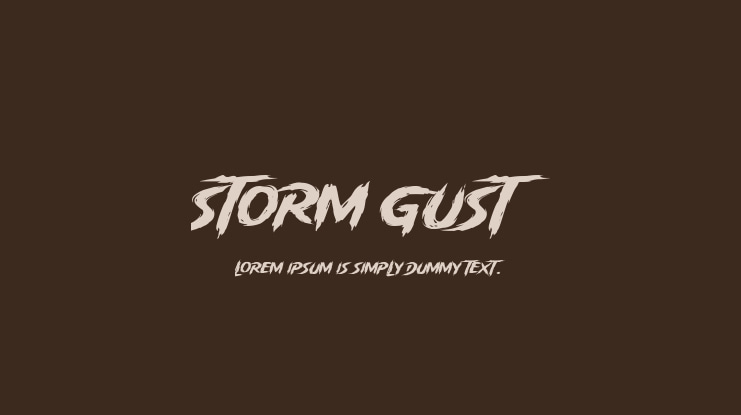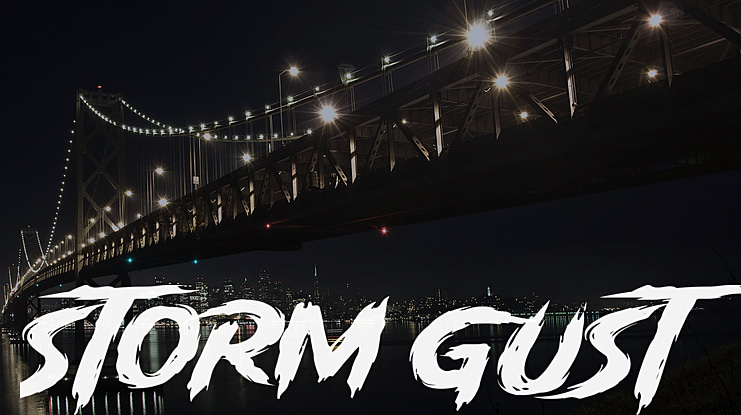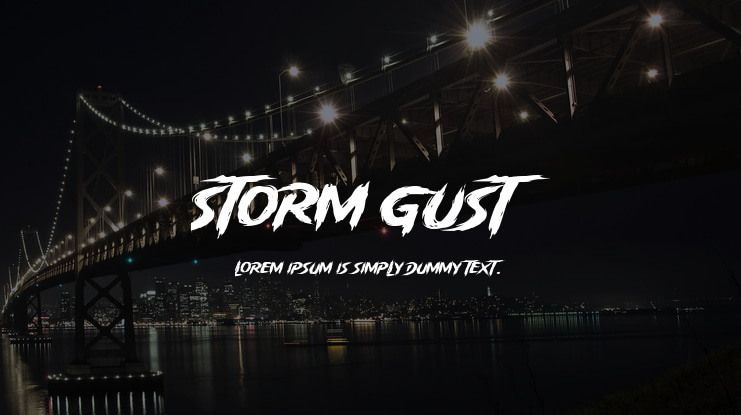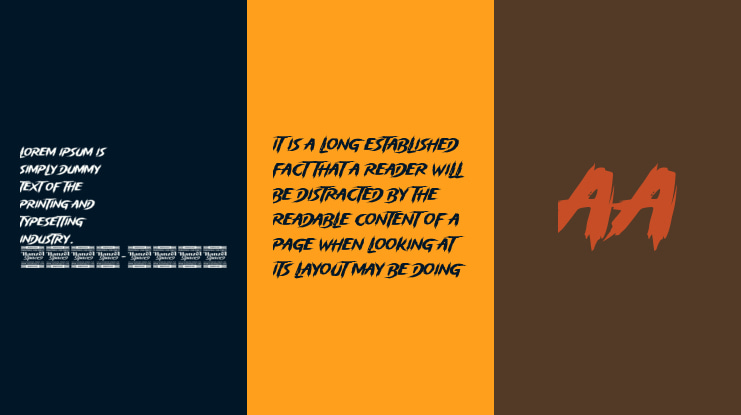
Storm Gust Font
Introducing Storm Gust Horror Font
Storm Gust Horror Font with rough and bold letters. Its great for logos, branding, print projects and any attention drawing headline. Storm Gust includes uppercase multilingual letters, punctuation and numbers. It also includes alternate styles for many letters which are toggled via Caps Lock.
Standard Ligatures
Numerals and Punctuation